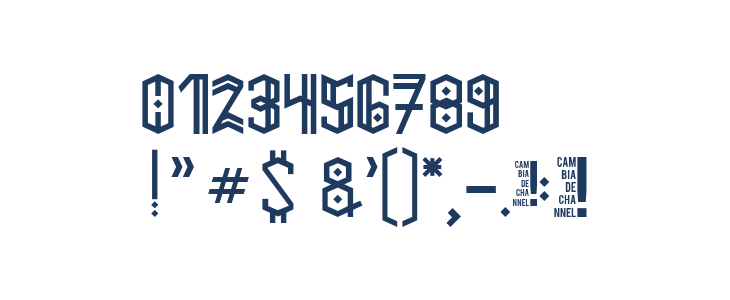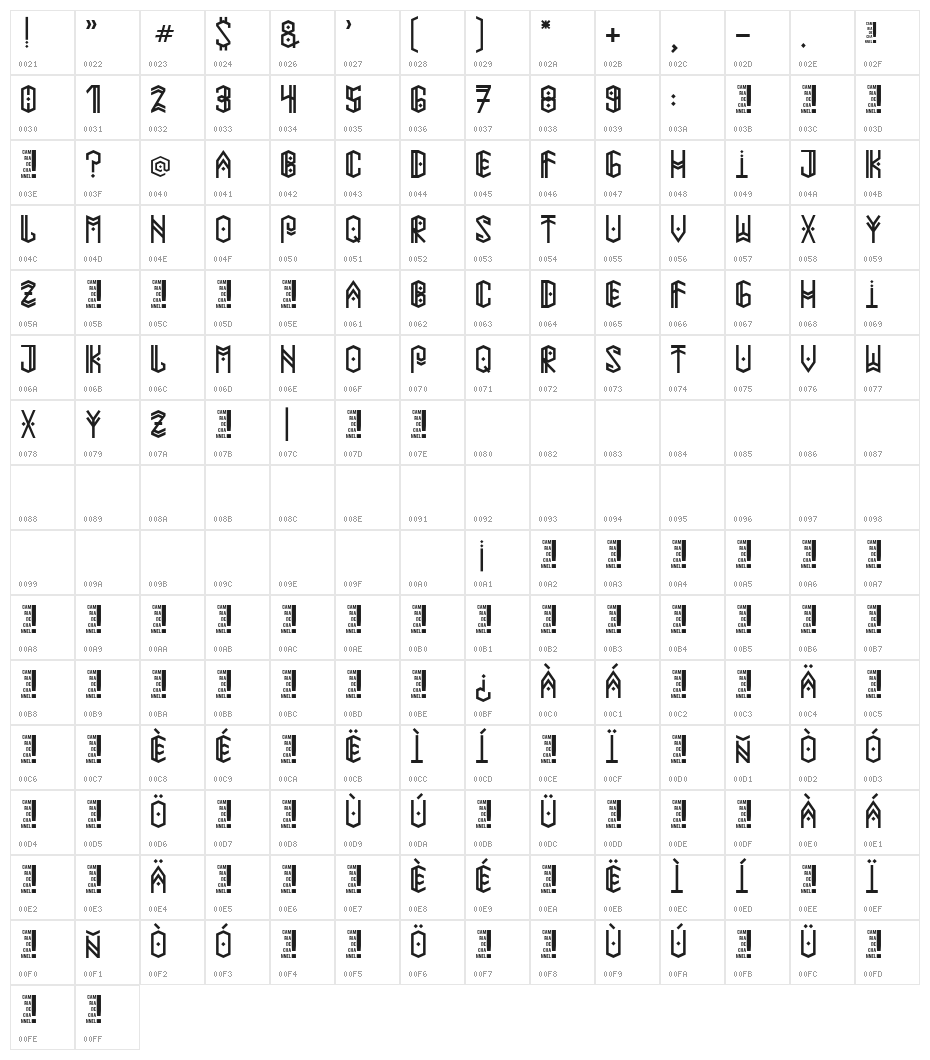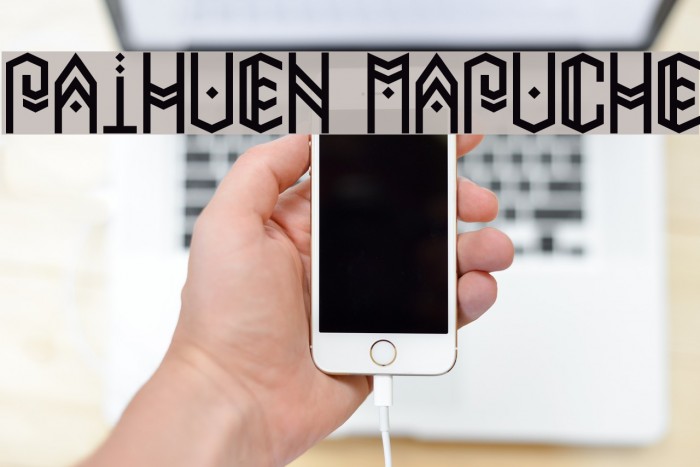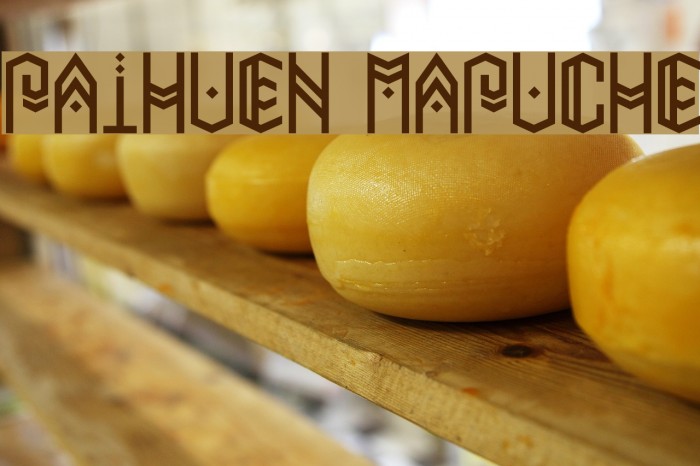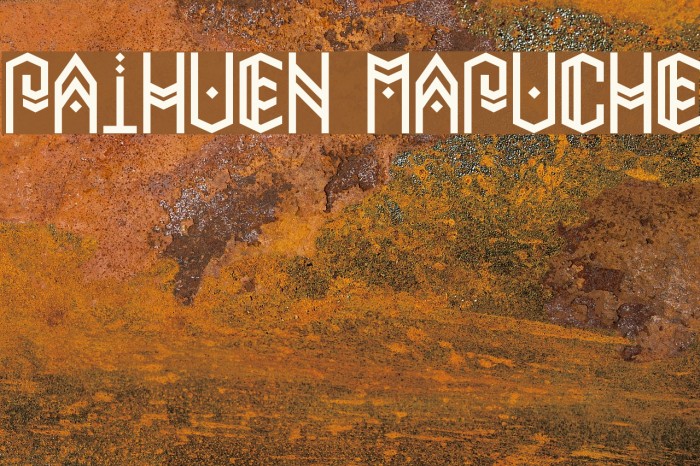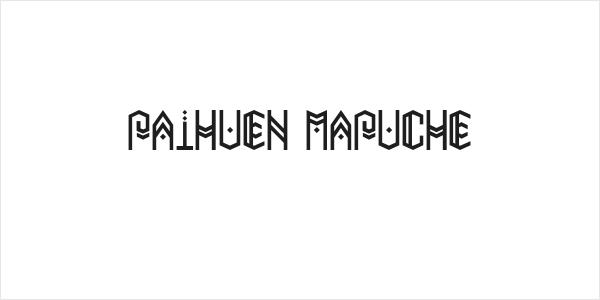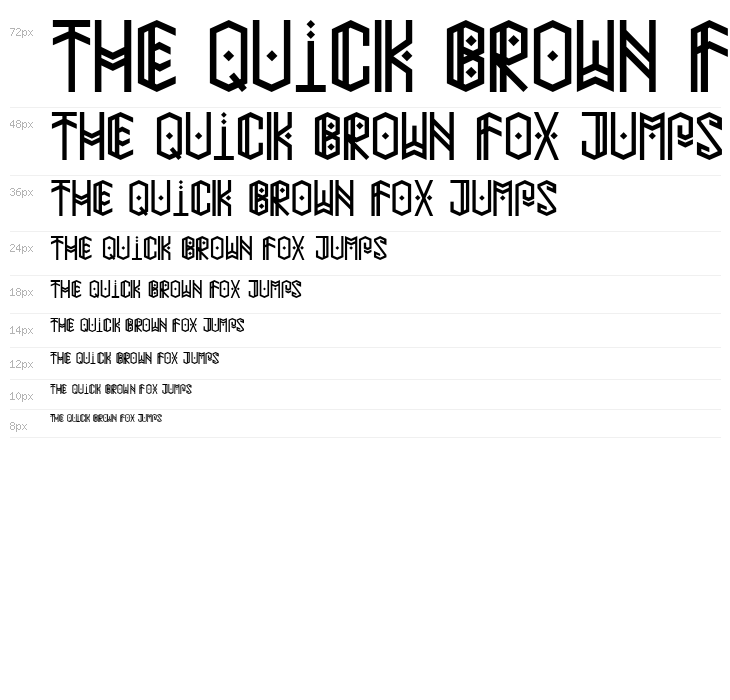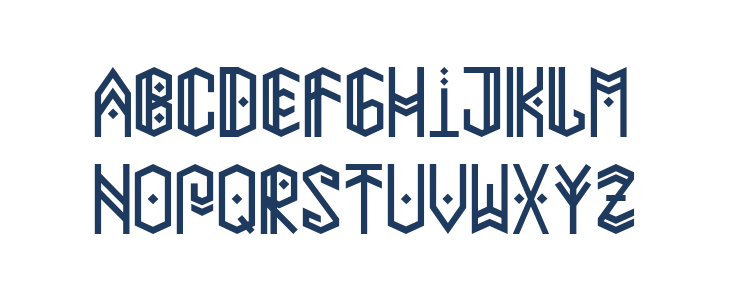
Paihuen Mapuche Font
Paihuen Mapuche Description
This font features a bold and geometric design with a distinctive tribal influence. Each character is constructed with angular lines and sharp edges, creating a sense of strength and modernity. The uppercase letters are particularly striking, with unique embellishments that add a decorative touch. The lowercase letters maintain the same geometric style, ensuring consistency across the font. Numbers and special characters are designed to match the bold and angular aesthetic, making them stand out in any design. This font is ideal for projects that require a strong visual impact and a modern, edgy feel.
| Proposed Projects | Ideal for branding, posters, album covers, and any project requiring a bold, modern aesthetic. |